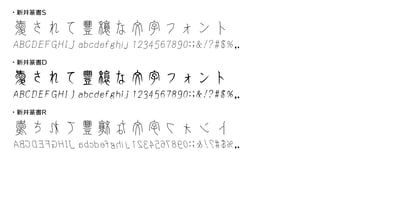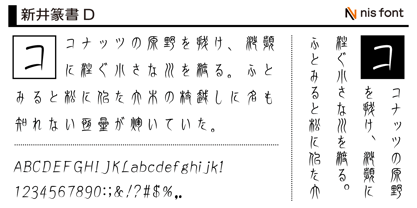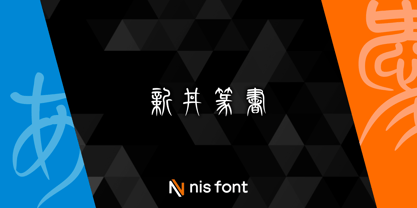
OT-NIS_ARA
This typeface faithfully reproduces the seal script (tensho), which represents the origins of Chinese characters, with minimal design alterations. The kana characters are original creations.
There are certain differences in glyph shapes compared to commonly used display character shapes.
While kana characters are not part of the original seal script, they have been uniquely designed to match the aesthetic of tensho. Additionally, commonly used characters for personal names and geographical locations have been registered as external characters in sections 6 and 7 of the font.